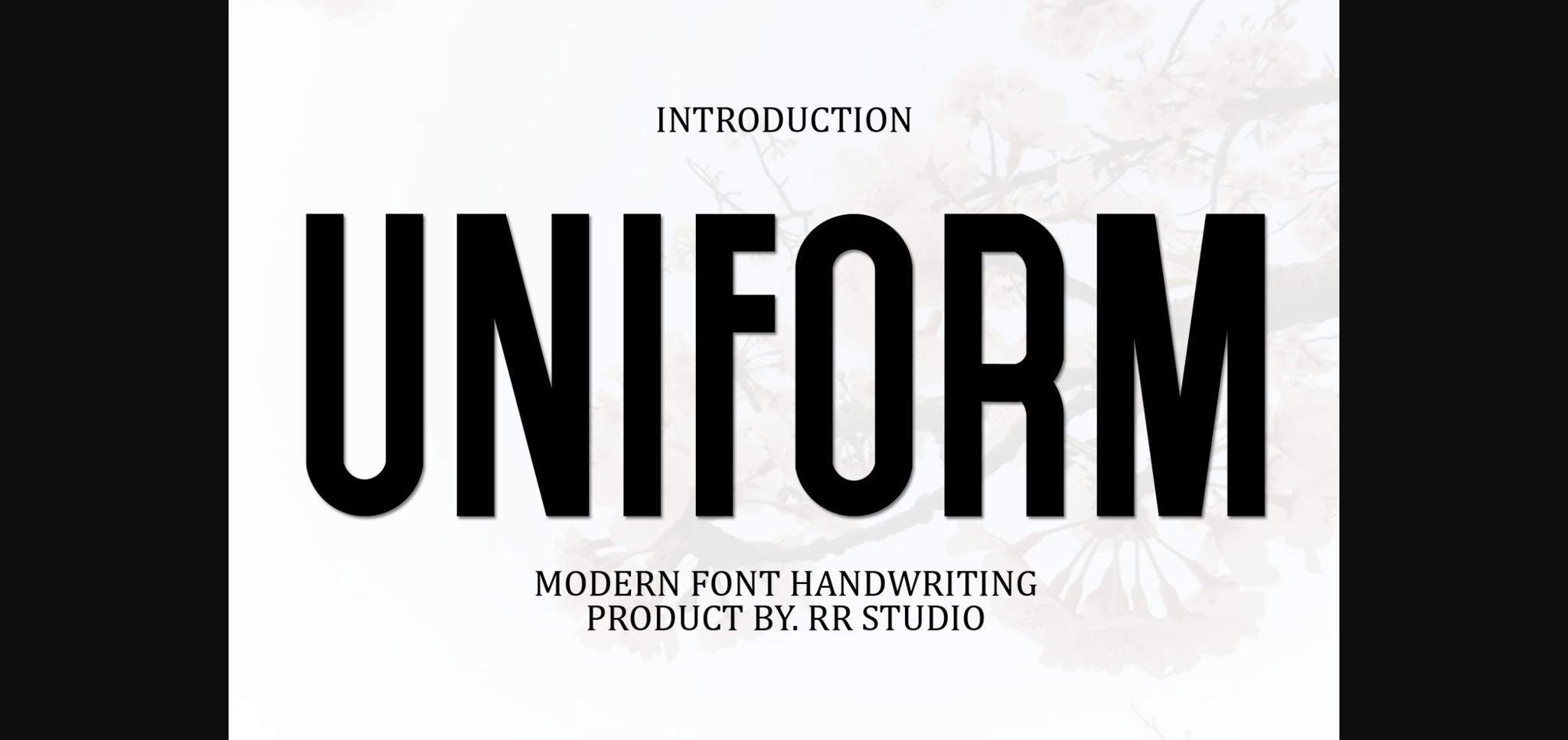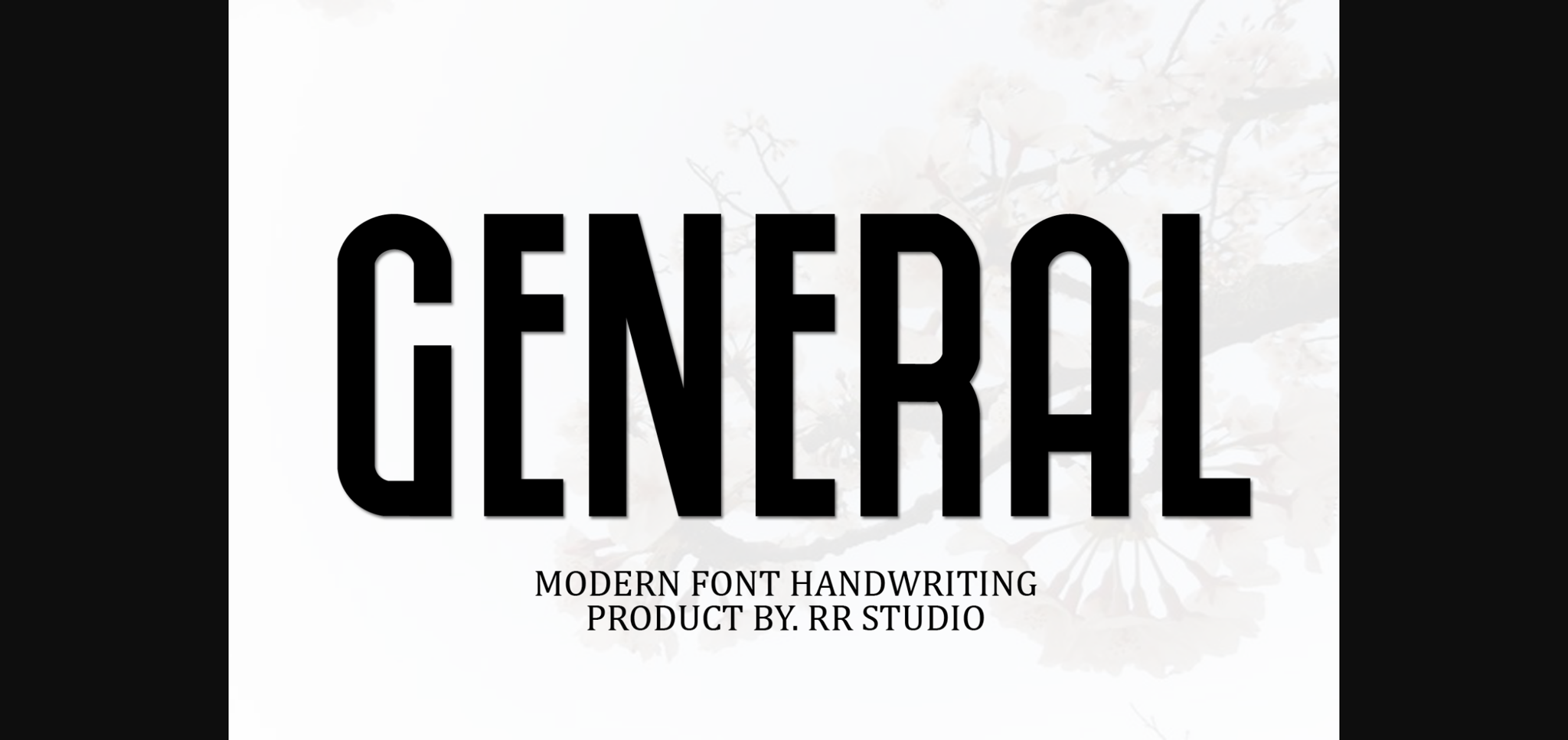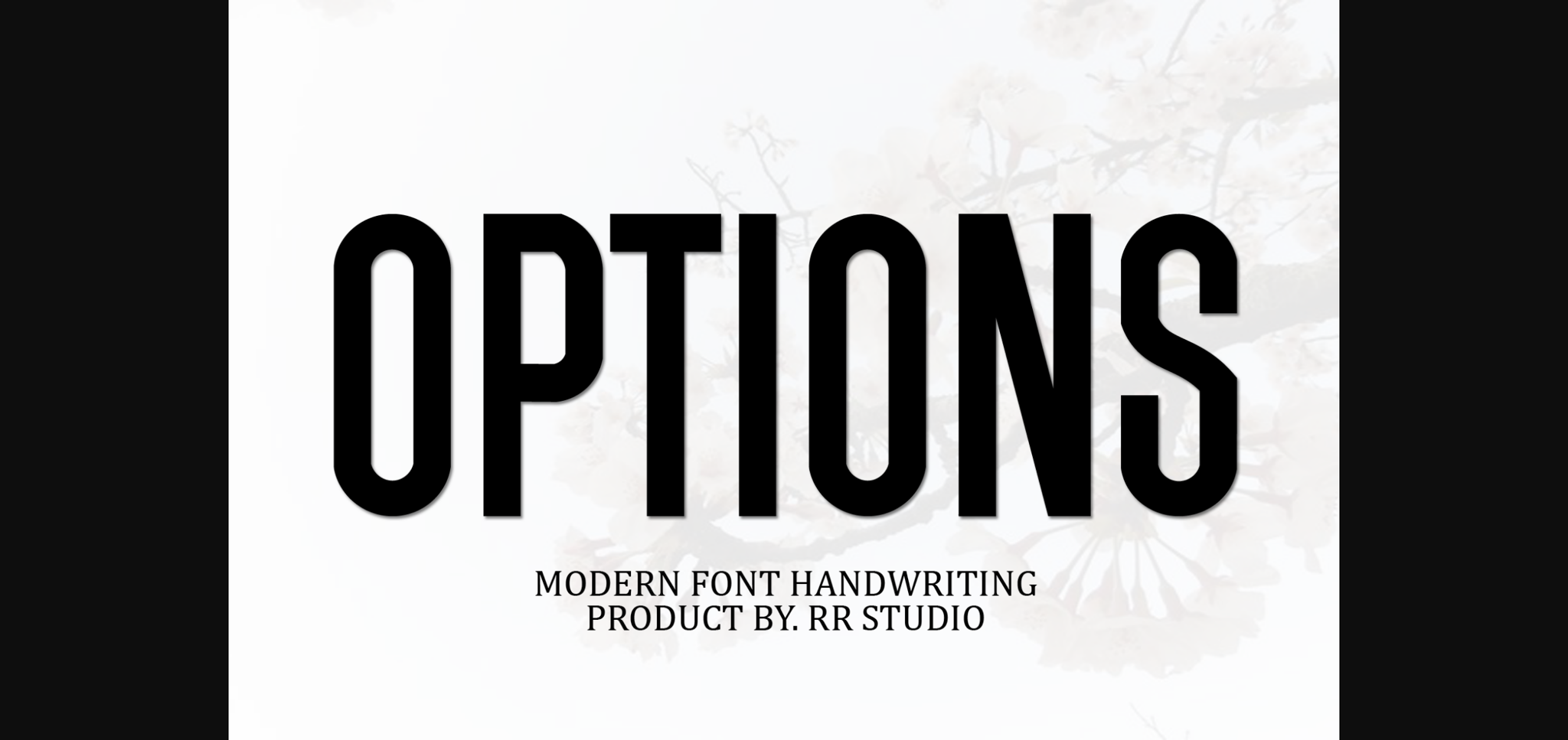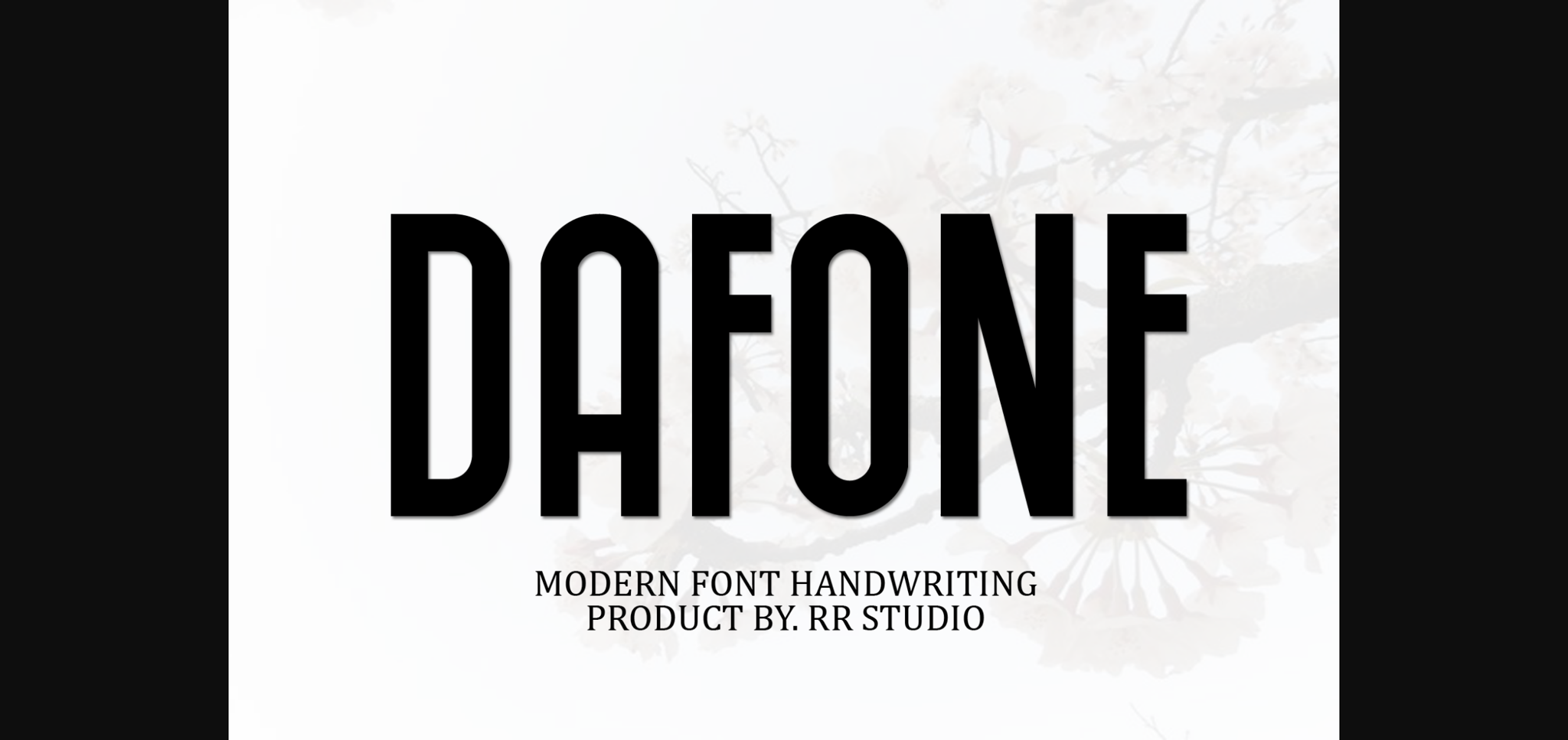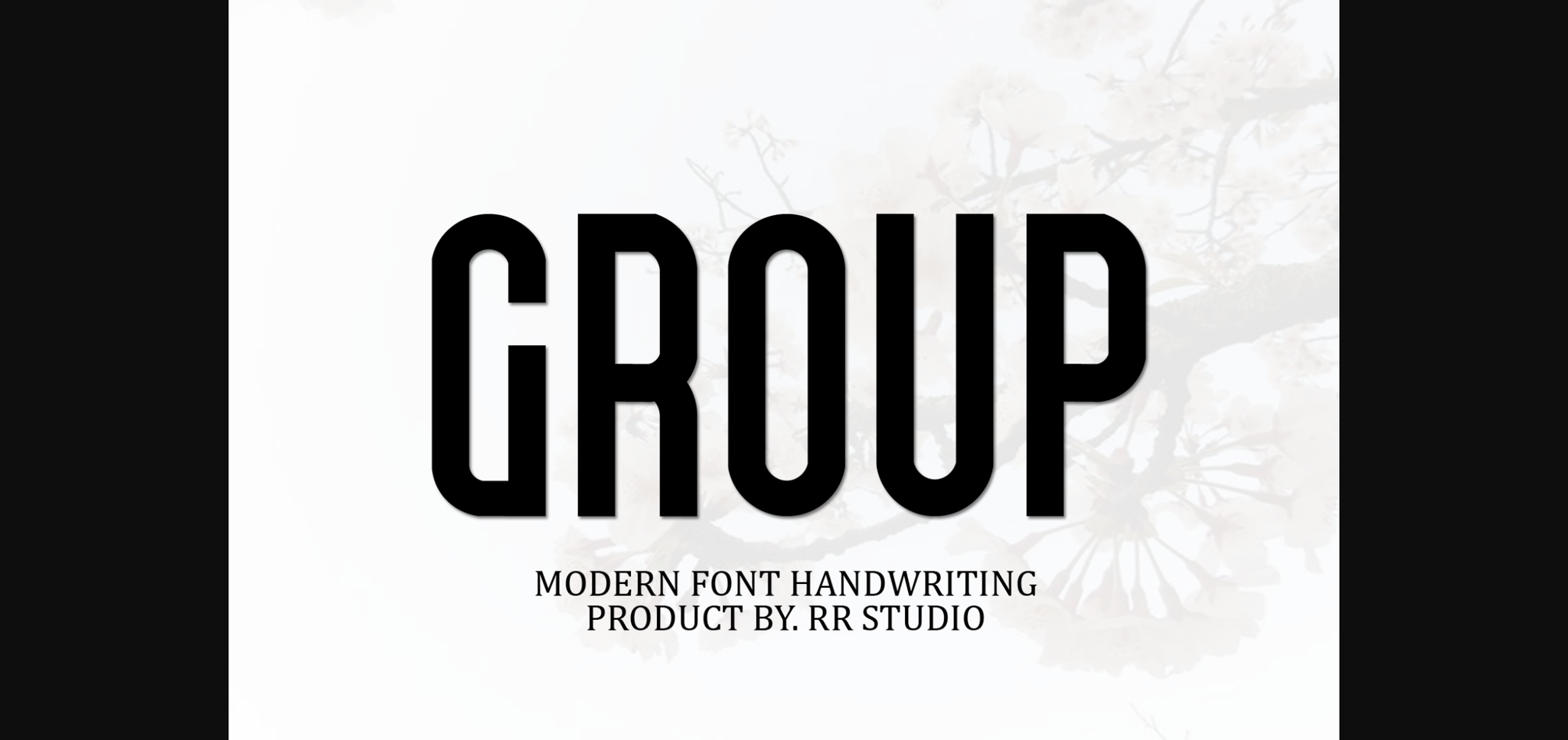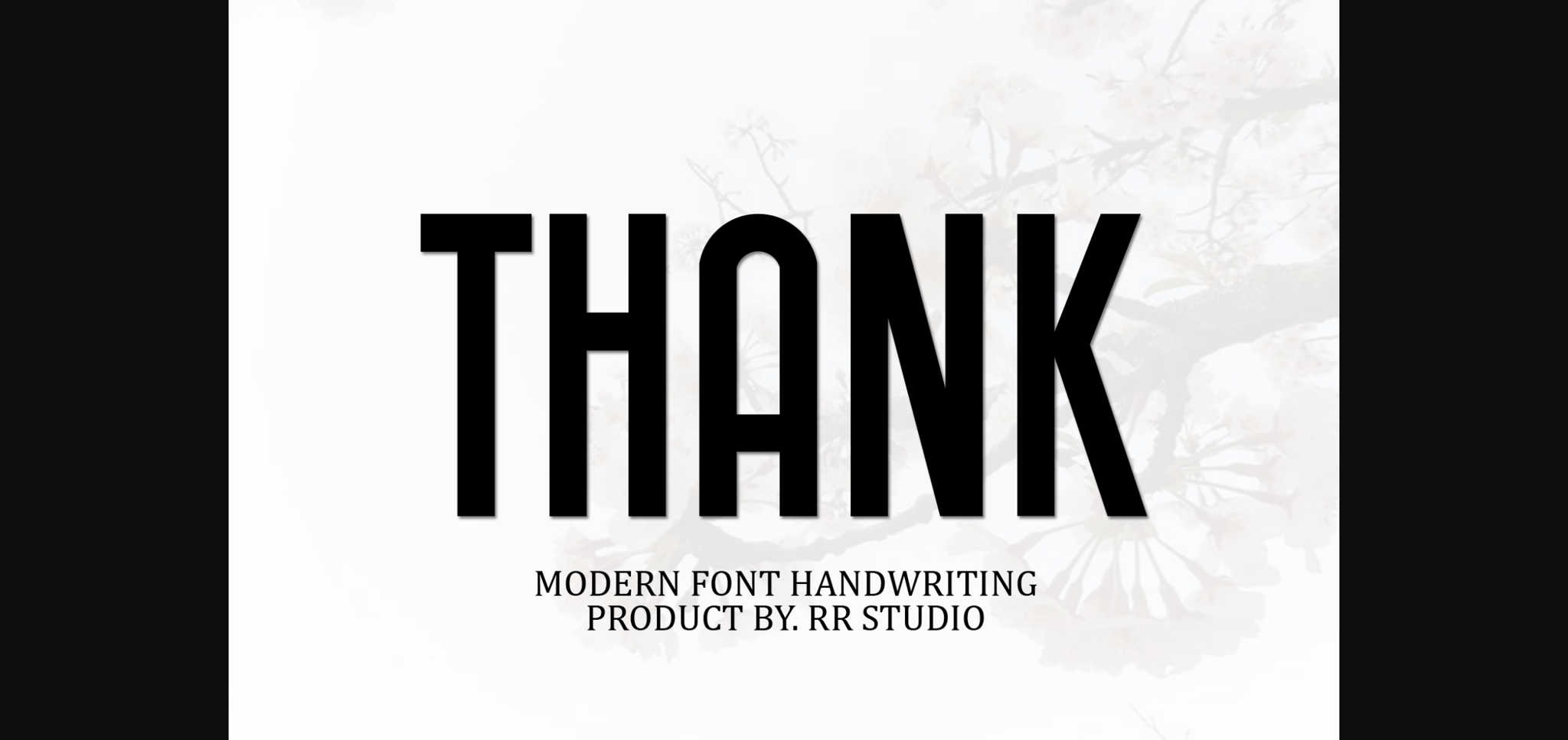
About Uniform Font
Uniform is a stylish and incredibly elegant sans serif font. It looks stunning on wedding invitations, thank you cards, quotes, greeting cards, logos, business cards and every other design which needs a handwritten touch.